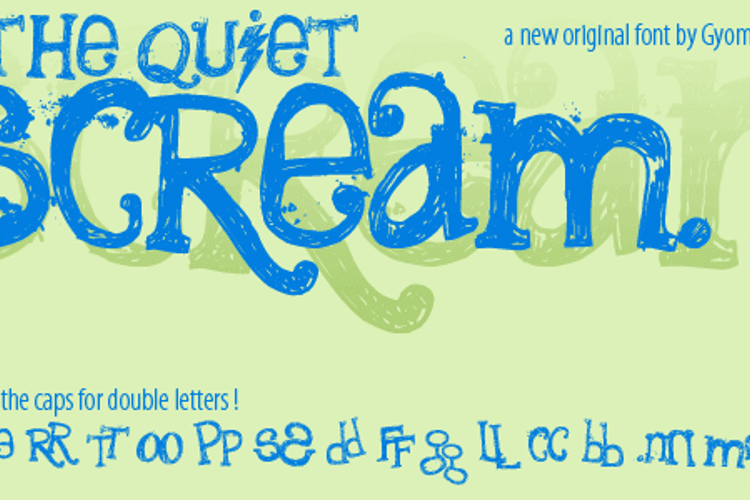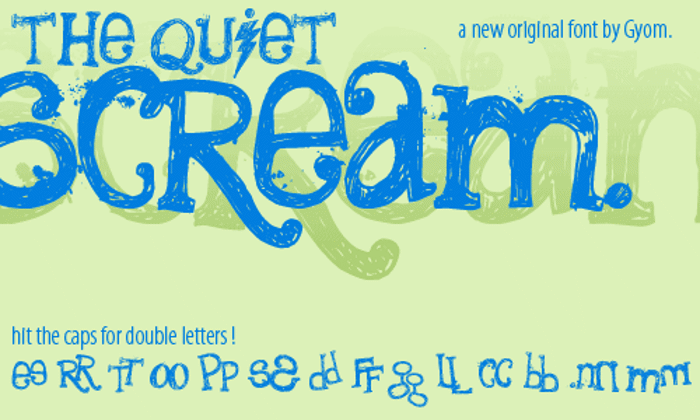
the quiet scream Font
Hit the caps for double letters.
15 years agoTHIS TEXT WAS IN SUGAR MAGAZINE!!
15 years agolol love this i used it for my school presientation
14 years agothis is to DIIIEEE for. officially now my favorite font. i loooove it! 😘
13 years agoI tried! >=.=<
the h doesn't work.... 😞
8 years agoI love the look and the potential impact this font will have. It's still amazing how you do it! Great job...
love it so cool